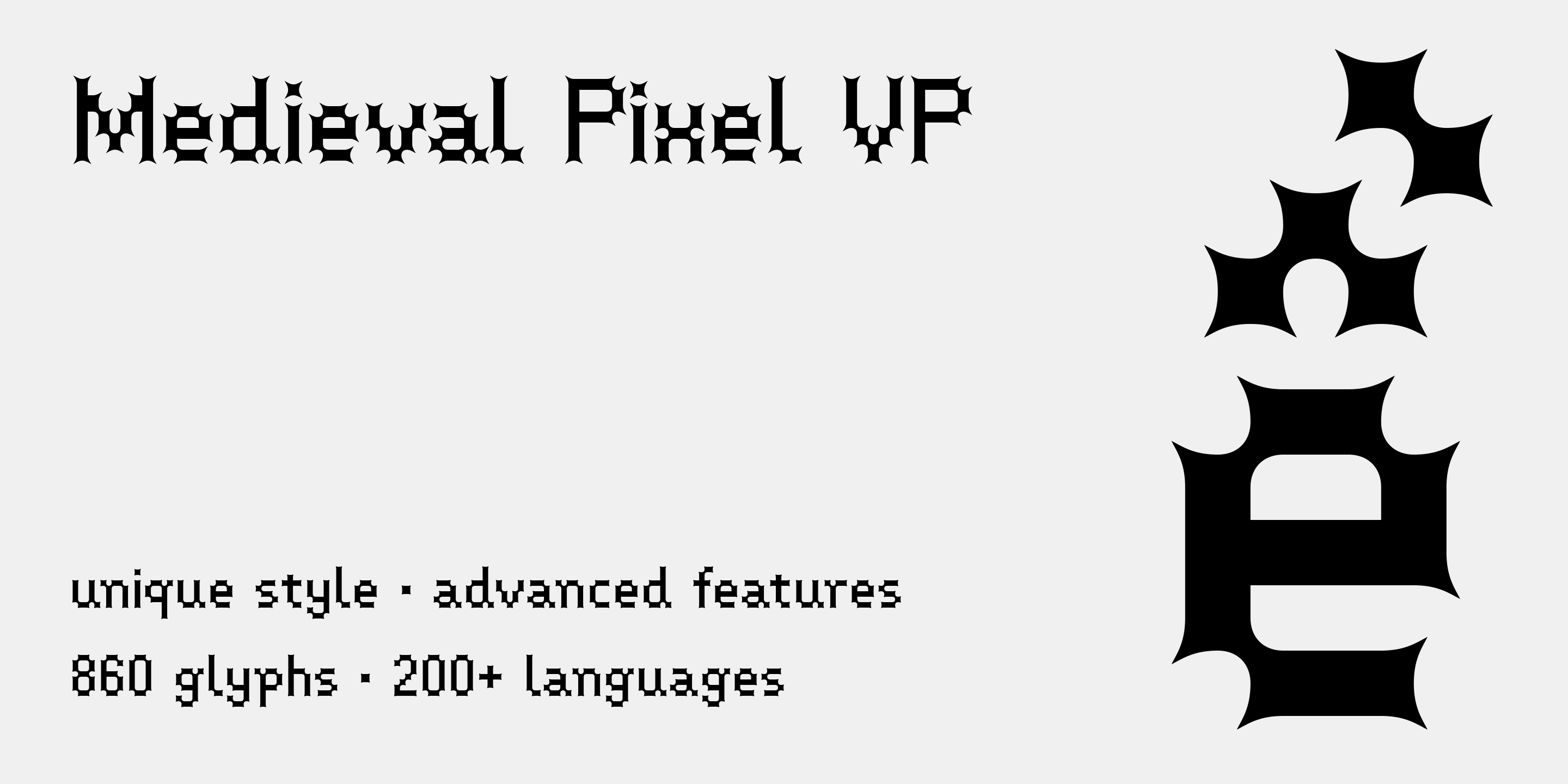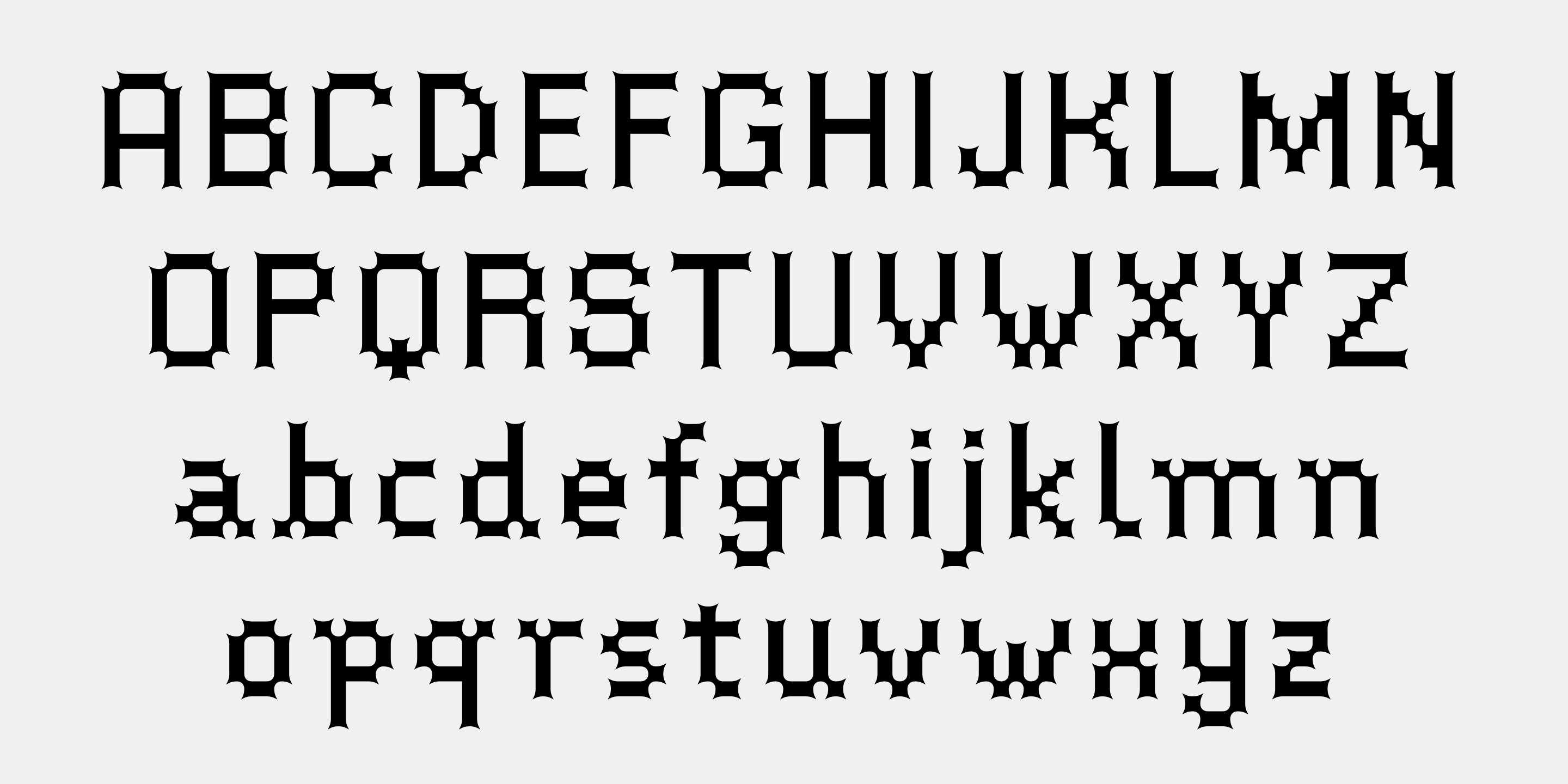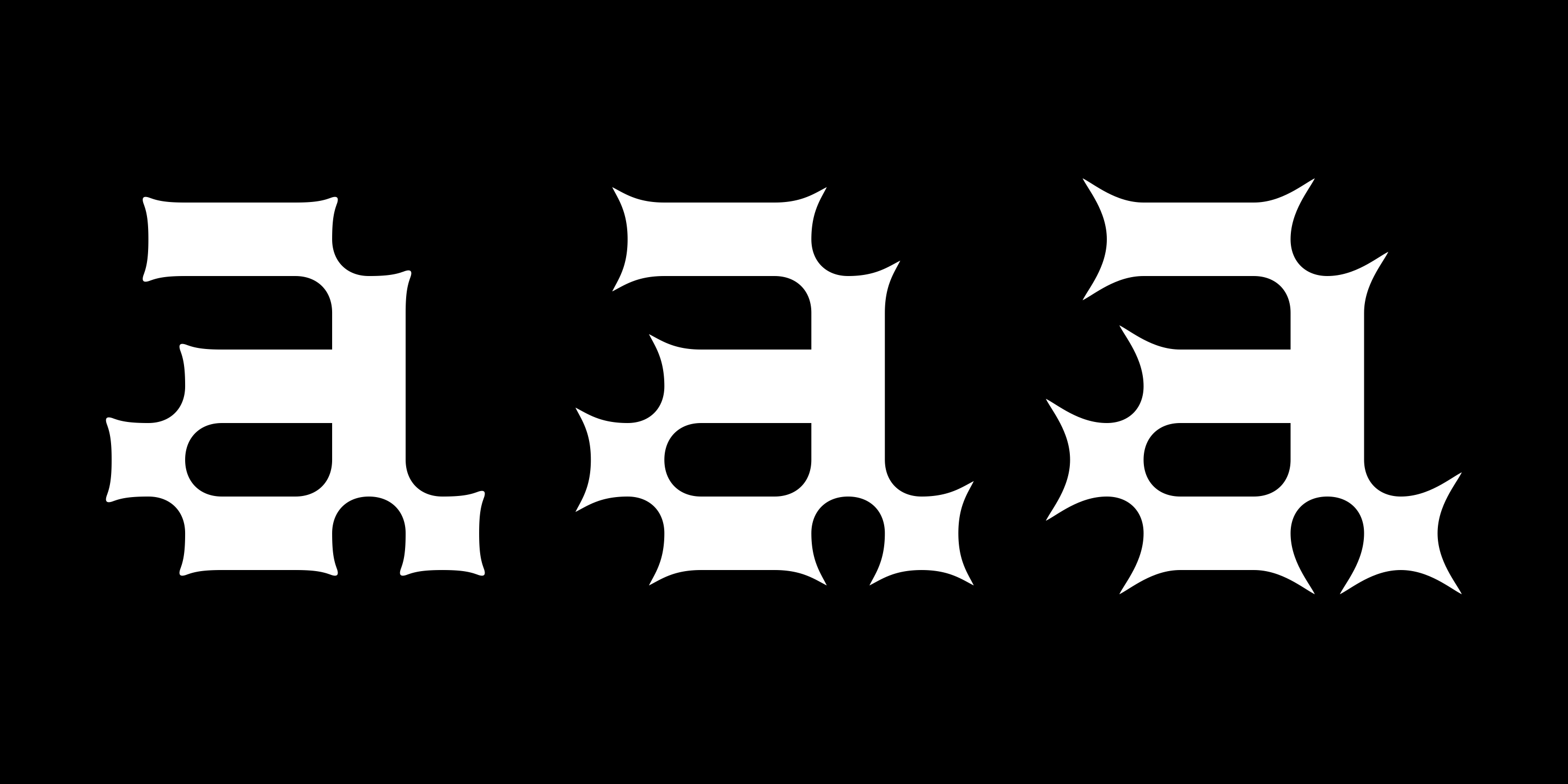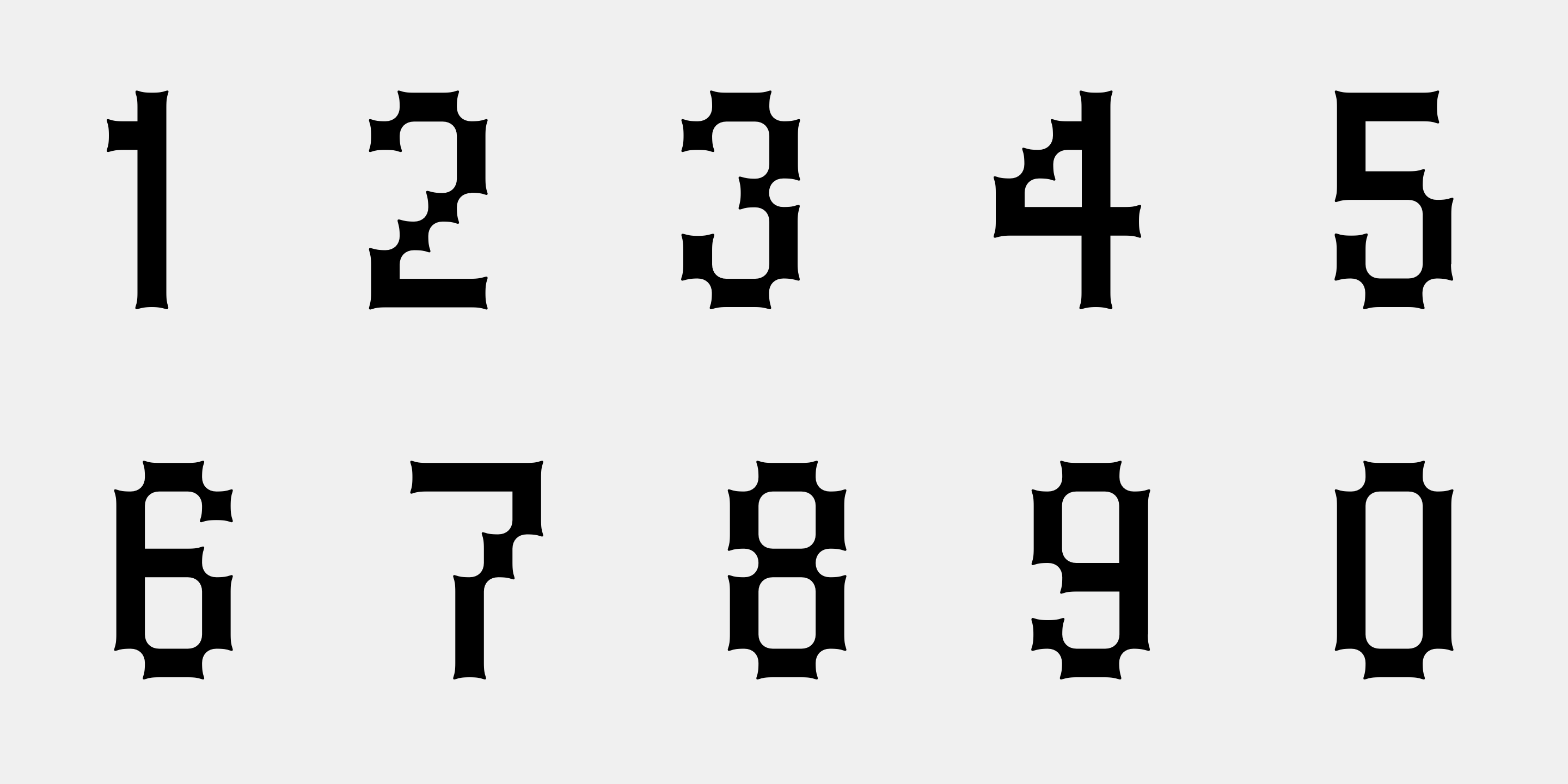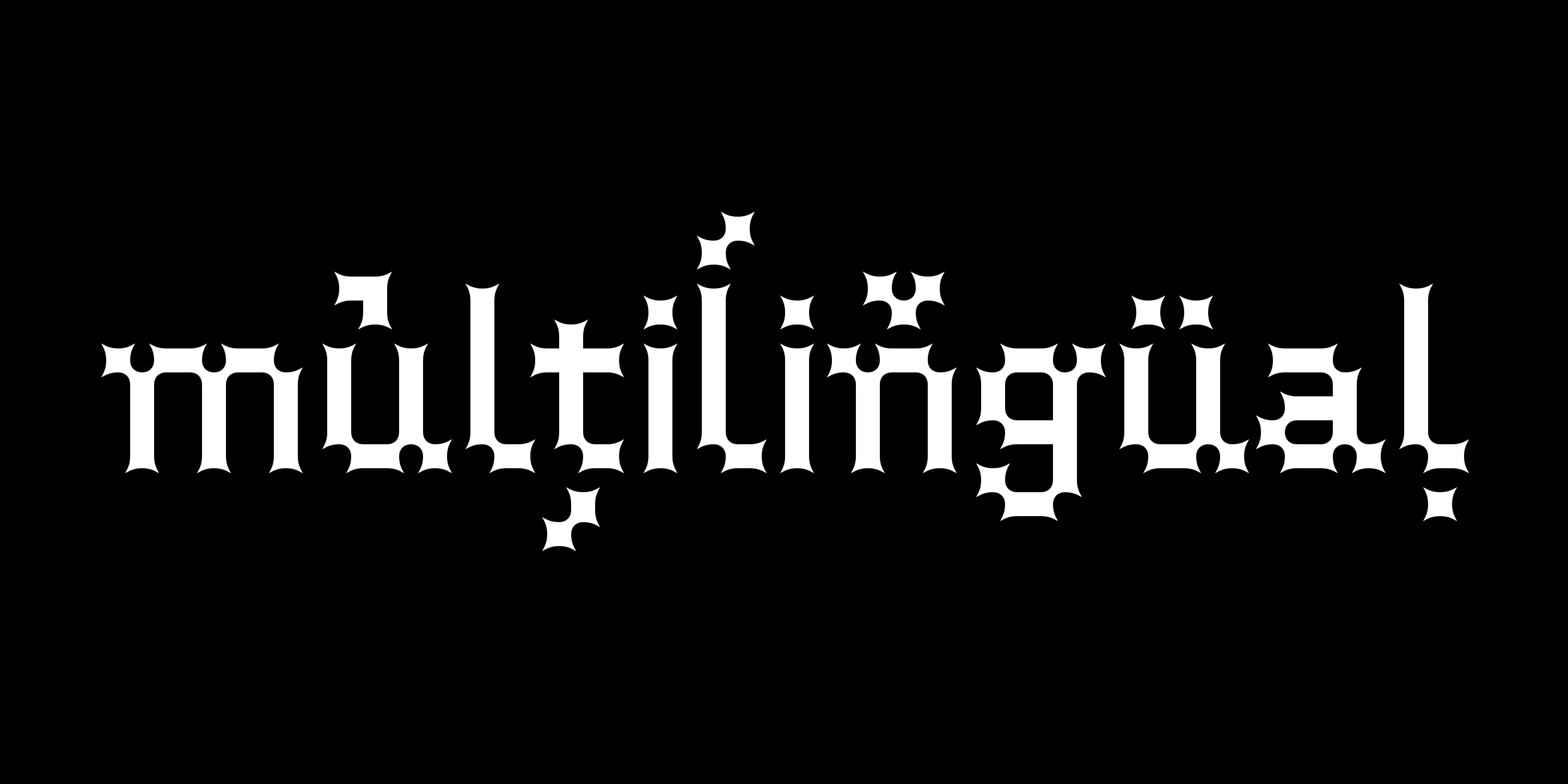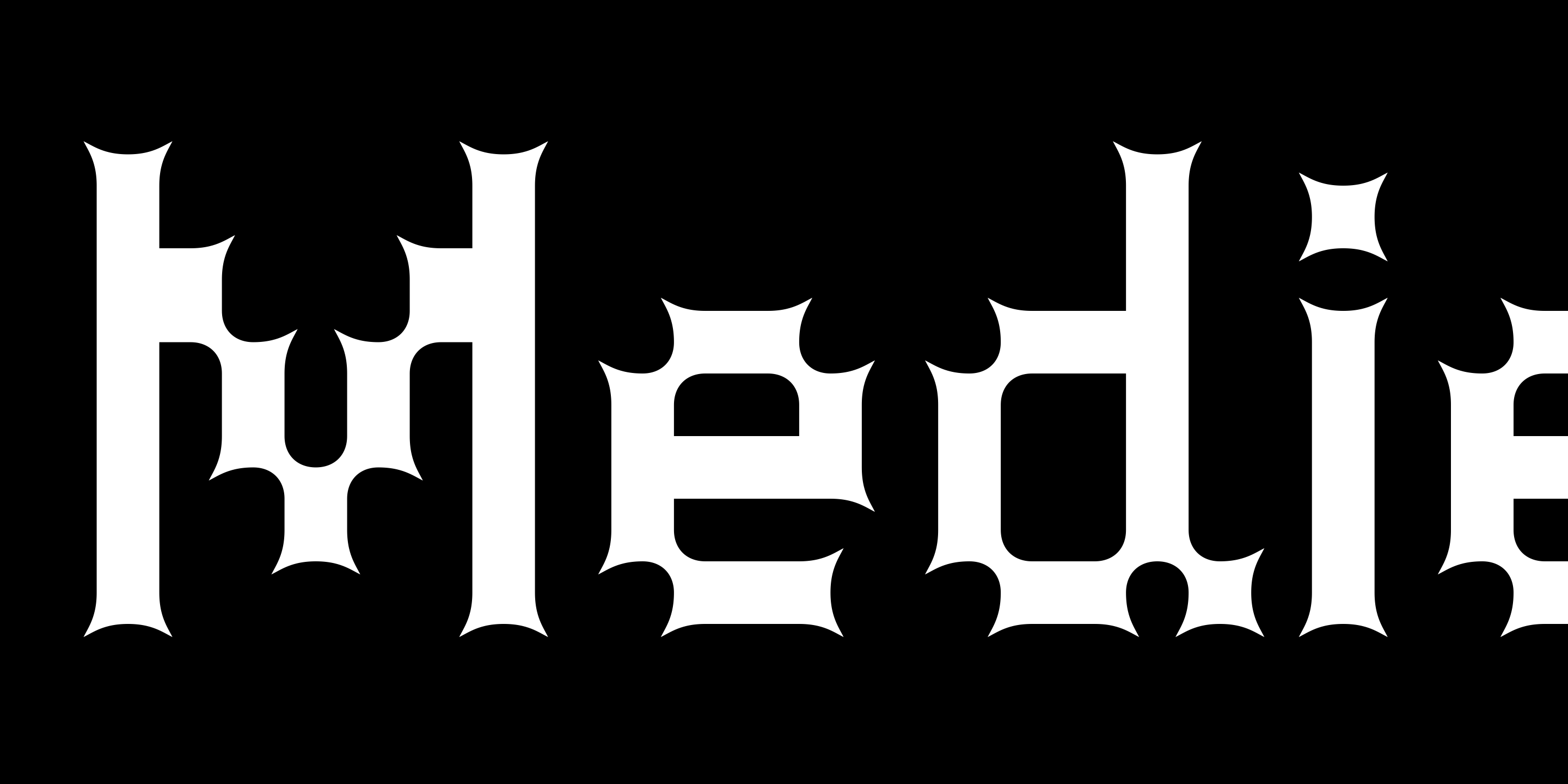
Medieval Pixel VP is a highly stylized family of three fonts that combine familiar <b>pixelfont forms with unique sharp details</b> - evocative of a fantasy and historical aesthetic, retro video games, and horror movies.
All styles include an extensive character set and numerous advanced OpenType features. Over 800 glyphs in each font ensure full support for over 200 languages.